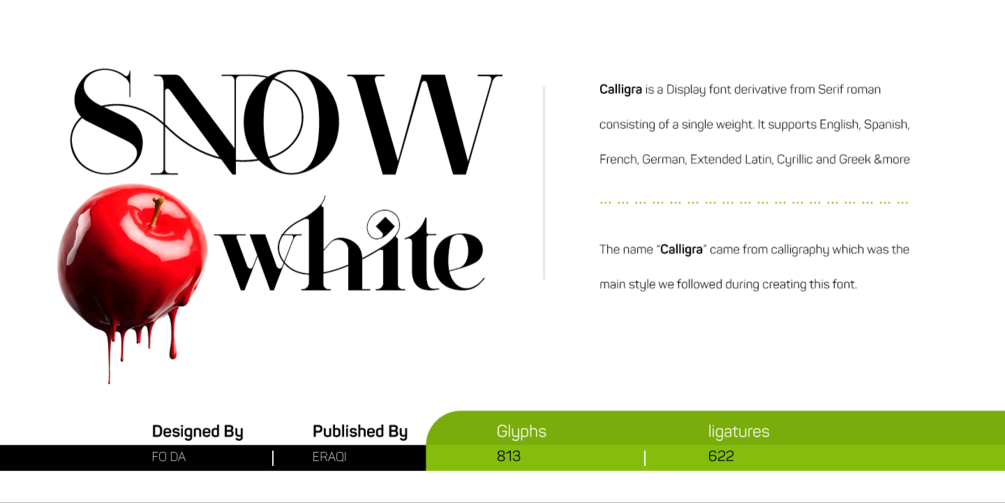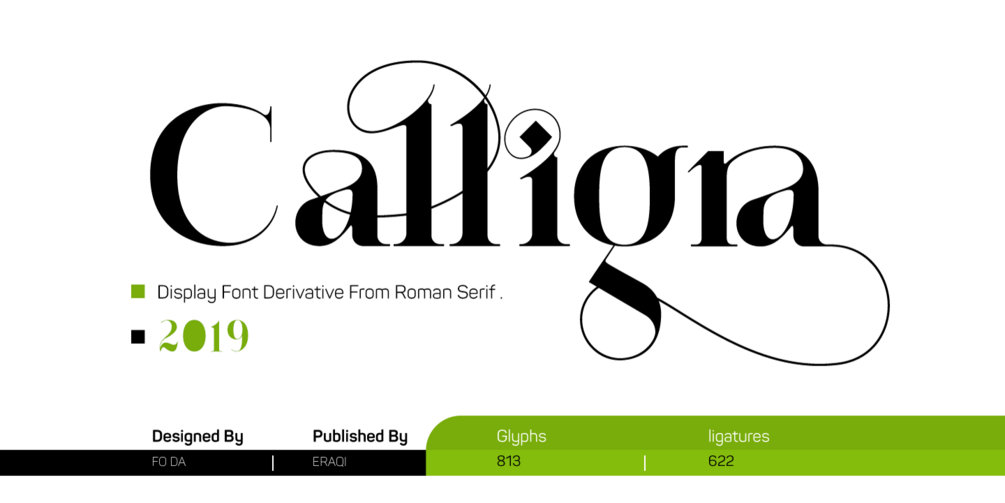
Calligra Font
Calligra is a single weight display font derived from a serif roman. It works well for headlines and can be used also well in text. It supports English, Spanish, French, German, Extended Latin, Greek and more. The name Calligra came from calligraphy which was the main style we followed during creating this font. Main Features: • 813 glyphs • 622 ligatures • 29 “Number” ligatures • Support for many languages • Perfect for logos and headlines • Latin support expanded